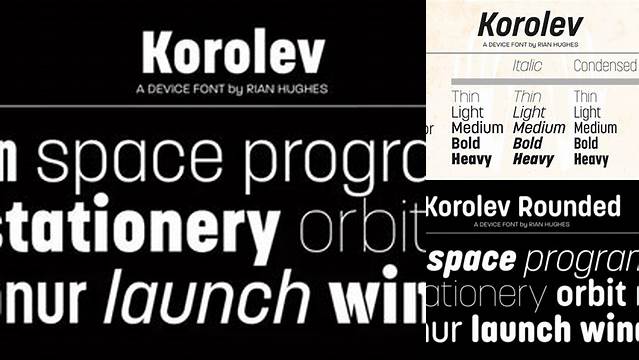
What is the Korolev Font?
First things first, let’s understand what exactly the Korolev font is. Knowing its background and style will help you determine if it's the right fit for your design needs. The Korolev font family, designed with a modern and slightly futuristic touch, is known for its clean lines and geometric shapes. It exudes a sense of sophistication and is often used in branding, headlines, and display purposes. Imagine sleek, minimalist designs – that’s where Korolev shines!
Typically, the font family includes various weights and styles, ranging from light to bold, and sometimes even italic versions. This versatility makes it a favorite among designers who appreciate a typeface that can adapt to different contexts. Think of using the lighter weights for body text in brochures or websites, and the bolder weights for striking headlines that grab attention. Understanding its versatility is key to effectively leveraging the Korolev font in diverse design scenarios. The font's clean and modern appearance makes it exceptionally suitable for projects aiming to convey a sense of innovation and sophistication. Whether it's for web design, print materials, or branding initiatives, the Korolev font provides a distinctive visual identity that resonates with contemporary aesthetics. Its geometric forms and balanced letterforms ensure readability while maintaining a unique character. Moreover, its adaptability extends to various languages and character sets, making it a globally viable option for design projects. This comprehensive support, combined with its aesthetic appeal, positions the Korolev font as a valuable asset for designers seeking a versatile and modern typeface. By incorporating this font into your design toolkit, you gain access to a resource that can enhance the visual communication and impact of your work across different platforms and mediums.
Why Choose Korolev Font?
So, why should you choose the Korolev font over the hundreds of other options out there? There are several compelling reasons. Its modern and clean design makes it highly readable, ensuring your message is conveyed effectively. Readability is crucial, especially in digital designs where users are quickly scanning content. Secondly, its geometric nature gives it a distinct personality without being overly flashy. This balance is perfect for projects that require a touch of elegance and professionalism. Furthermore, the versatility we talked about earlier means you can use it across a wide range of applications, from website headers to printed materials. The consistent design language across different weights also ensures a cohesive visual identity for your brand or project. Considering the aesthetic and functional aspects, the Korolev font stands out as an excellent choice for projects that demand a contemporary and polished look. Its appeal lies not only in its visual attractiveness but also in its practicality, making it a reliable option for designers aiming to create impactful and legible designs. For instance, in the realm of branding, the Korolev font can help establish a strong and consistent identity, enhancing the overall perception of a brand. In the context of web design, its clear letterforms ensure that the content is easily accessible and engaging for users. The Korolev font is therefore more than just a typeface; it's a strategic design element that can contribute significantly to the success of your visual communication endeavors.
Korolev Font Alternatives: Similar Styles for Free
If you're having trouble finding a free version of the Korolev font, don't despair! There are plenty of amazing alternatives out there that capture a similar aesthetic. Google Fonts is a goldmine for this! Fonts like Montserrat, Lato, and Open Sans share a similar clean, geometric style. These fonts are not only free but also highly versatile and widely supported across different platforms. You might even discover that you prefer one of these alternatives to the original Korolev font! Experimenting with different typefaces is part of the design process, and sometimes the best solution comes from unexpected places. Remember, the goal is to find a font that effectively communicates your message and complements your overall design. Each of the aforementioned fonts brings its unique nuances to the table, allowing for subtle variations in tone and style. For example, Montserrat has a slightly more robust and assertive presence, while Lato offers a gentler and more approachable feel. Open Sans, on the other hand, is known for its exceptional readability, making it an excellent choice for body text. By exploring these alternatives, you can fine-tune your typographic choices to precisely match the needs and objectives of your project. The key is to consider not only the visual appeal of the font but also its practical aspects, such as legibility and character support.
Tips for Using Korolev Font (or Alternatives) Effectively
Now that you've got your font installed, let’s talk about how to use it effectively. Whether you're using Korolev or a similar font, there are a few key principles to keep in mind. First, consider the context of your design. Is it for a website, a brochure, or a logo? The font should complement the overall style and message of the project. Secondly, pay attention to hierarchy and readability. Use different weights and sizes to create visual interest and guide the reader's eye. Headings should be larger and bolder than body text, for example. Also, be mindful of line spacing and kerning (the space between letters) to ensure optimal readability. Avoid using too many different fonts in a single design, as this can create visual clutter. A general rule of thumb is to stick to two or three fonts at most. Finally, don’t be afraid to experiment and break the rules sometimes! Design is a creative process, and the best results often come from trying new things. However, always prioritize clarity and communication. The goal is to make your design both beautiful and effective. By carefully considering these factors, you can ensure that your typographic choices enhance the overall impact of your visual communication. Effective typography is not merely about selecting an aesthetically pleasing font; it's about using type strategically to create a cohesive and engaging visual experience. The interplay between different typographic elements, such as size, weight, and spacing, can significantly influence how the audience perceives and interacts with the design. Therefore, mastering the art of typography is an essential skill for any designer seeking to create impactful and memorable work.